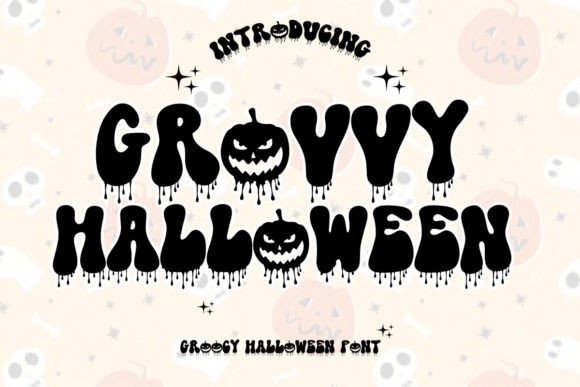
The Perfect Font for a Spooktacular Halloween
As the leaves begin to change colors and the air grows crisp, many designers start to think about how they can bring a touch of the spooky season to their projects. It’s that magical moment when inspiration strikes, and the possibilities seem endless. For some, it might be the perfect opportunity to create a new logo, while others might be working on a Halloween-themed campaign. Whatever the project, the right font can make all the difference.
Enter the Groovy Halloween Font, a dripping-style font that’s perfect for capturing the essence of the holiday. With its ravishing style, this font is sure to fall in love with anyone who sees it. Whether you’re working on a circuit project, designing a shirt, or creating a retro-themed poster, the Groovy Halloween Font is a valuable addition to any designer’s toolkit.
Groovy Halloween Font Key Features
- Unique Characteristics: The Groovy Halloween Font features a spooky and playful design, with intricate details and textures that evoke a sense of Halloween spirit.
- Font Style: The font is available in both regular and bold styles, allowing designers to create contrast and emphasis in their designs.
Designer Review: Groovy Halloween Font
First off, I have to say that the Groovy Halloween Font is a real showstopper! ✨ It’s got a fun, playful vibe that’s perfect for adding some spooky charm to your Halloween designs. The font’s bold lines and rounded edges give it a retro feel that’s sure to evoke memories of classic Halloween decorations.
One of the things I love about this font is its versatility. ✨ It’s not just limited to Halloween designs – you can use it to create eye-catching titles, headings, and even social media posts. The font’s also easy to customize, with a range of sizes and colors to choose from.
- ⚠️ Limited character set: While the font is great for titles and headings, it’s not suitable for large blocks of text. The character set is relatively limited, which can make it difficult to use for longer pieces of writing.
- ⚠️ Not suitable for all designs: While the font’s perfect for Halloween-themed designs, it may not be the best choice for more serious or professional designs. Its playful vibe can be overwhelming in some contexts.
Overall, I’d say the Groovy Halloween Font is a great addition to any designer’s toolkit. It’s a fun, versatile font that’s perfect for adding some personality to your designs. Just be sure to use it in the right context – and don’t be afraid to get creative with it!
The Groovy Halloween Font is perfect for creating spooky and fun designs for Halloween-themed events, parties, and marketing materials. Some common use cases include:
- Invitations and party decorations
- Marketing materials, such as flyers and posters
- Social media graphics and banners
- Personalized gifts and stationery
Remember to experiment with different font sizes, colors, and combinations to get the most out of the Groovy Halloween Font.